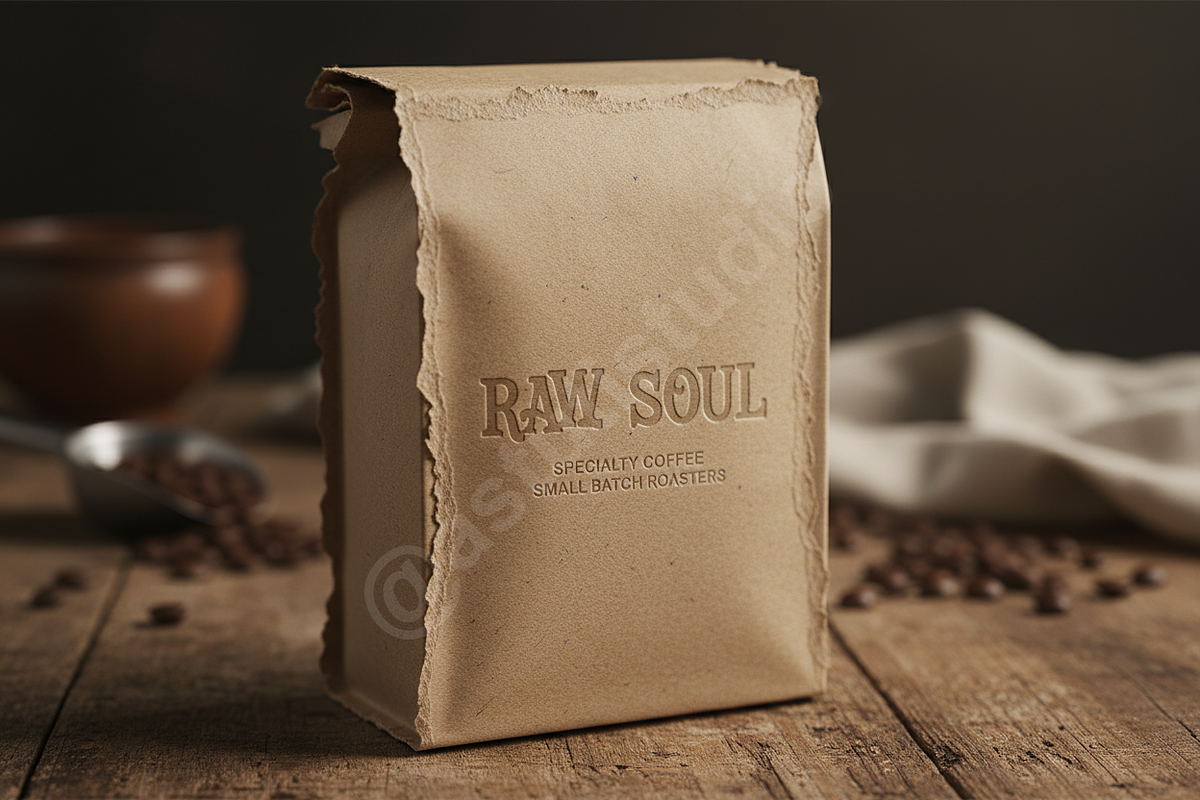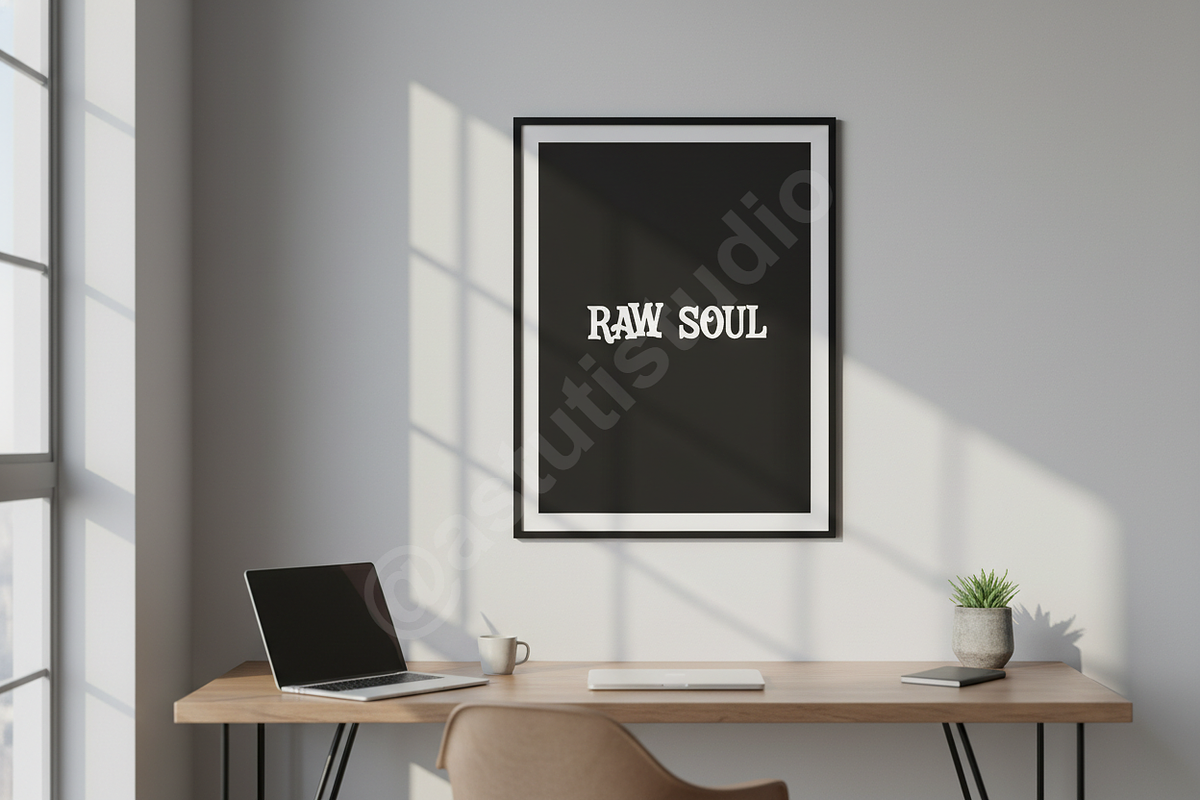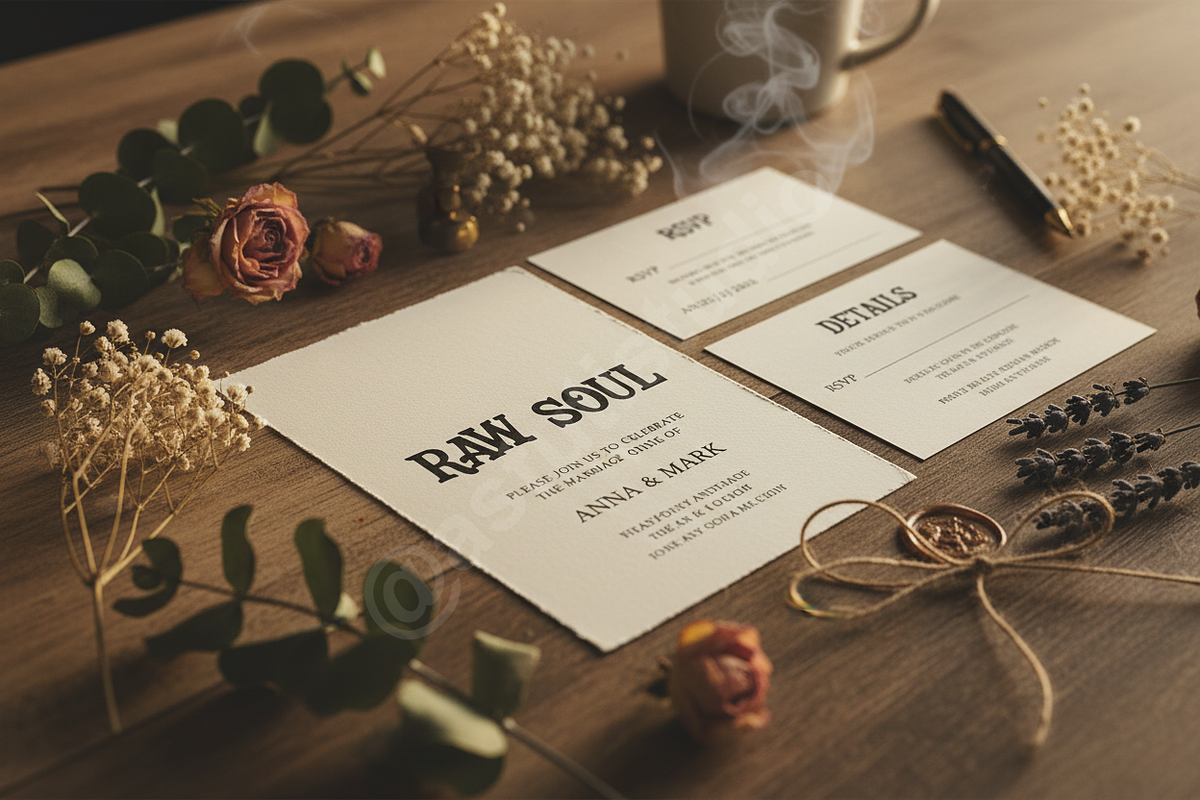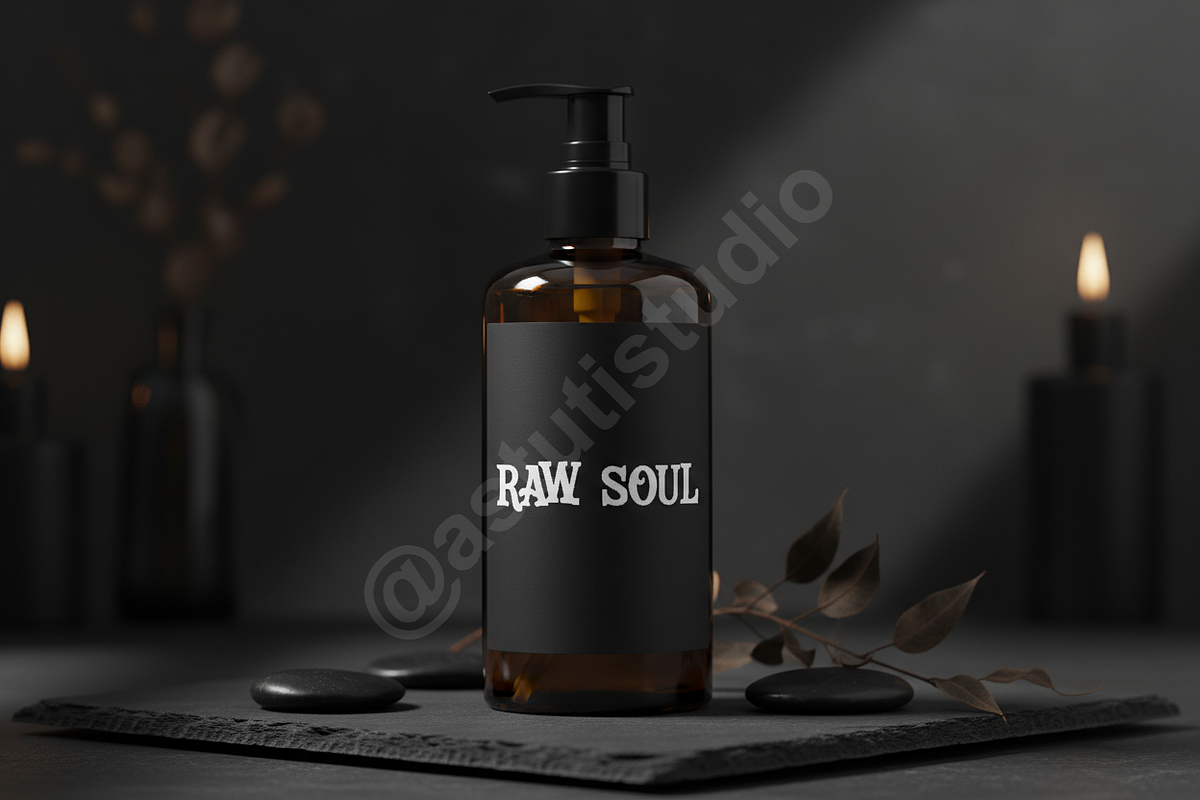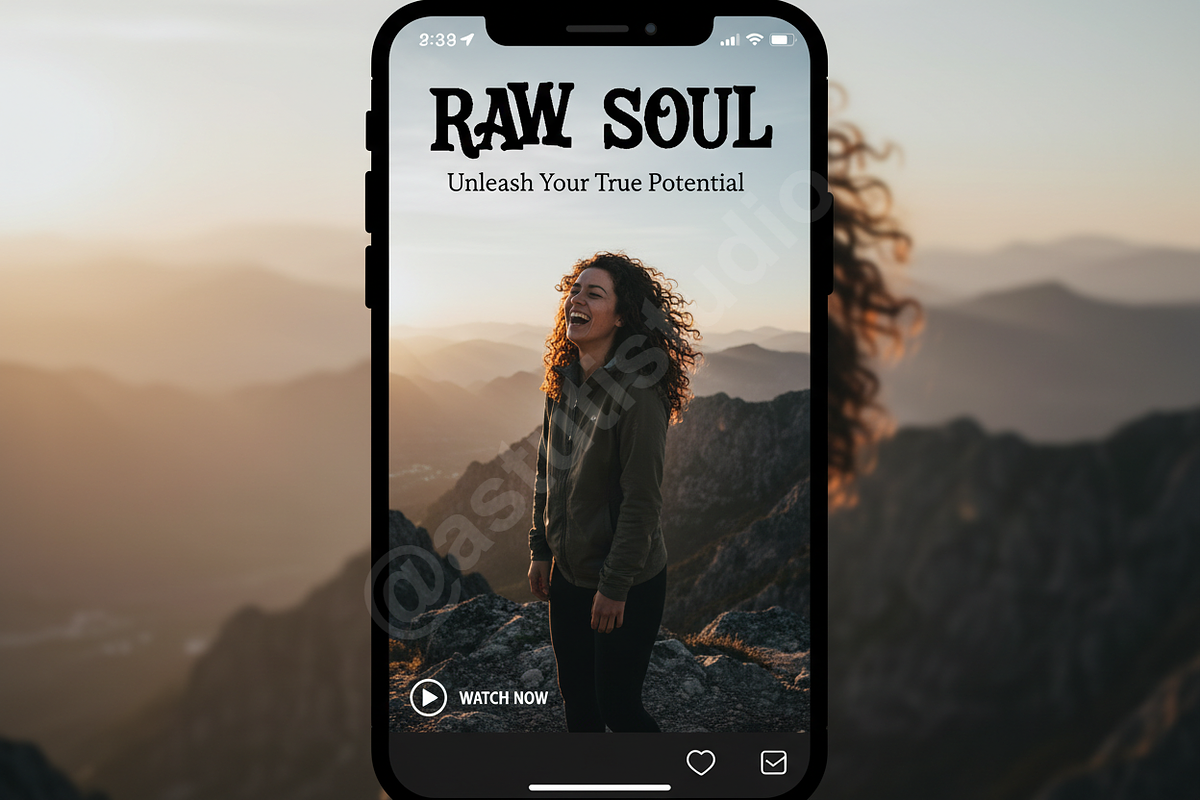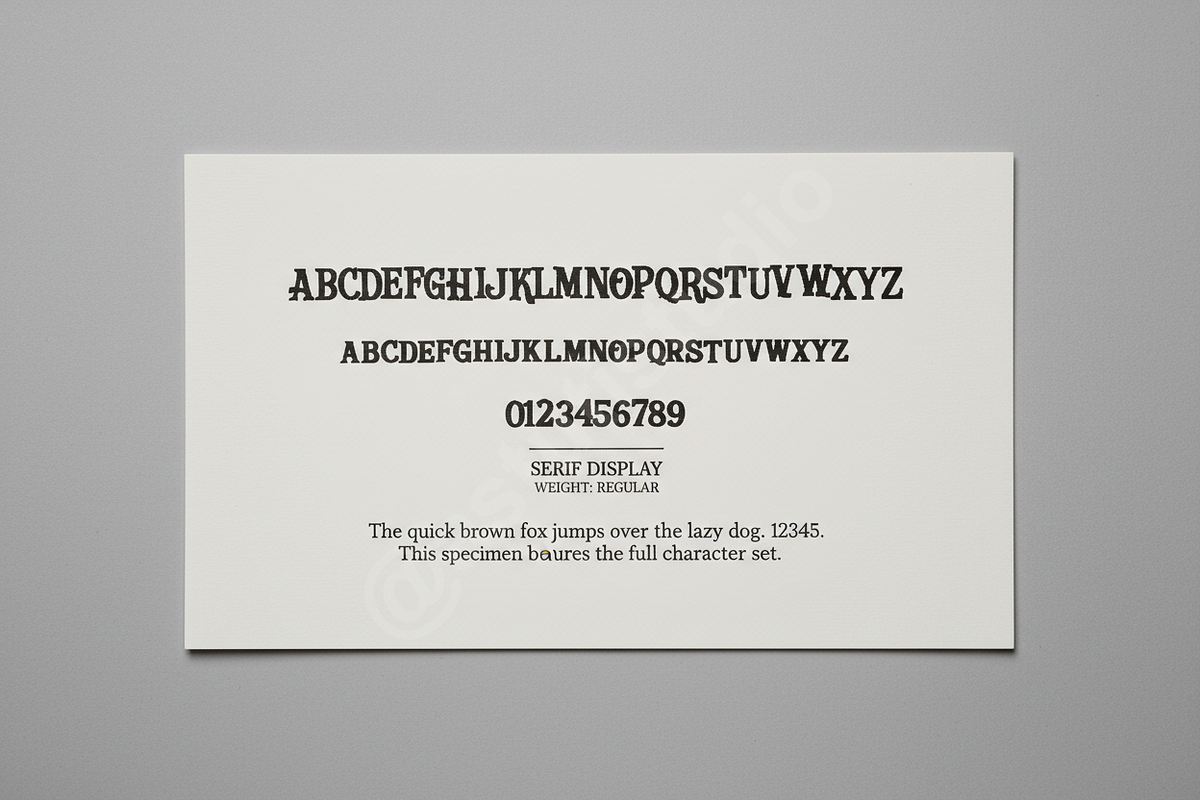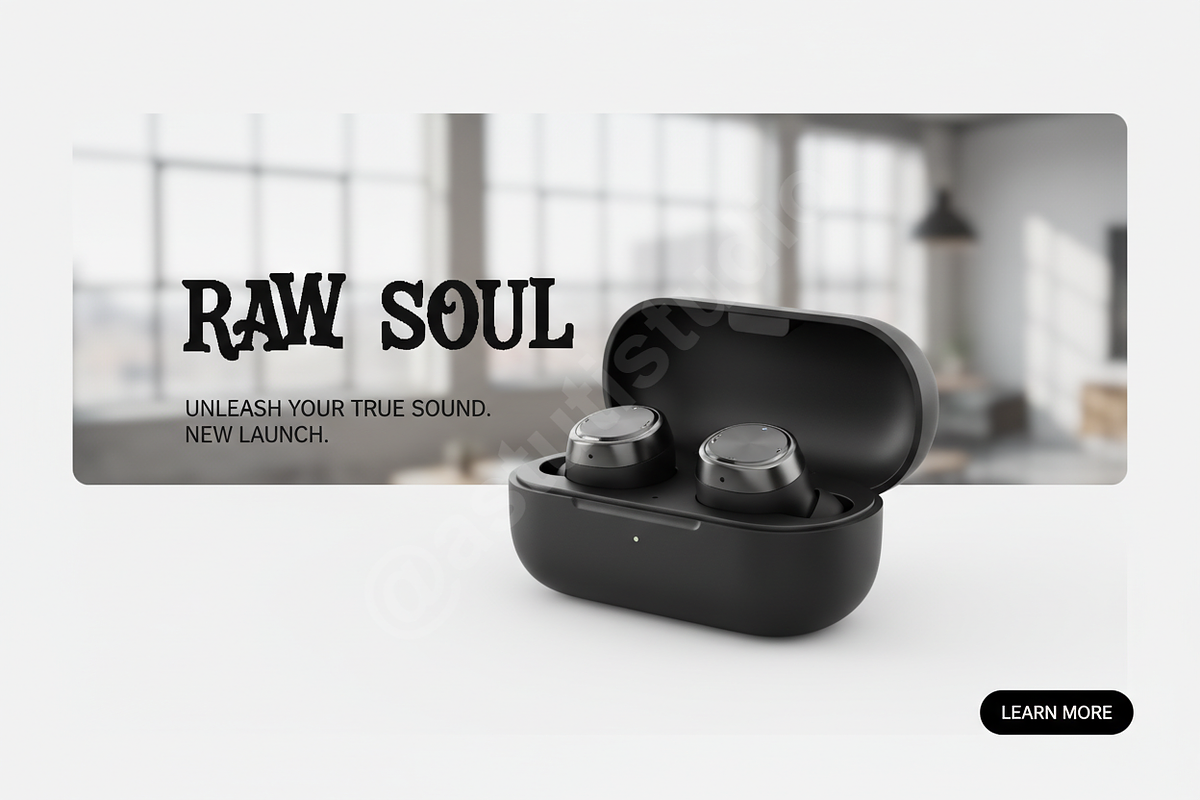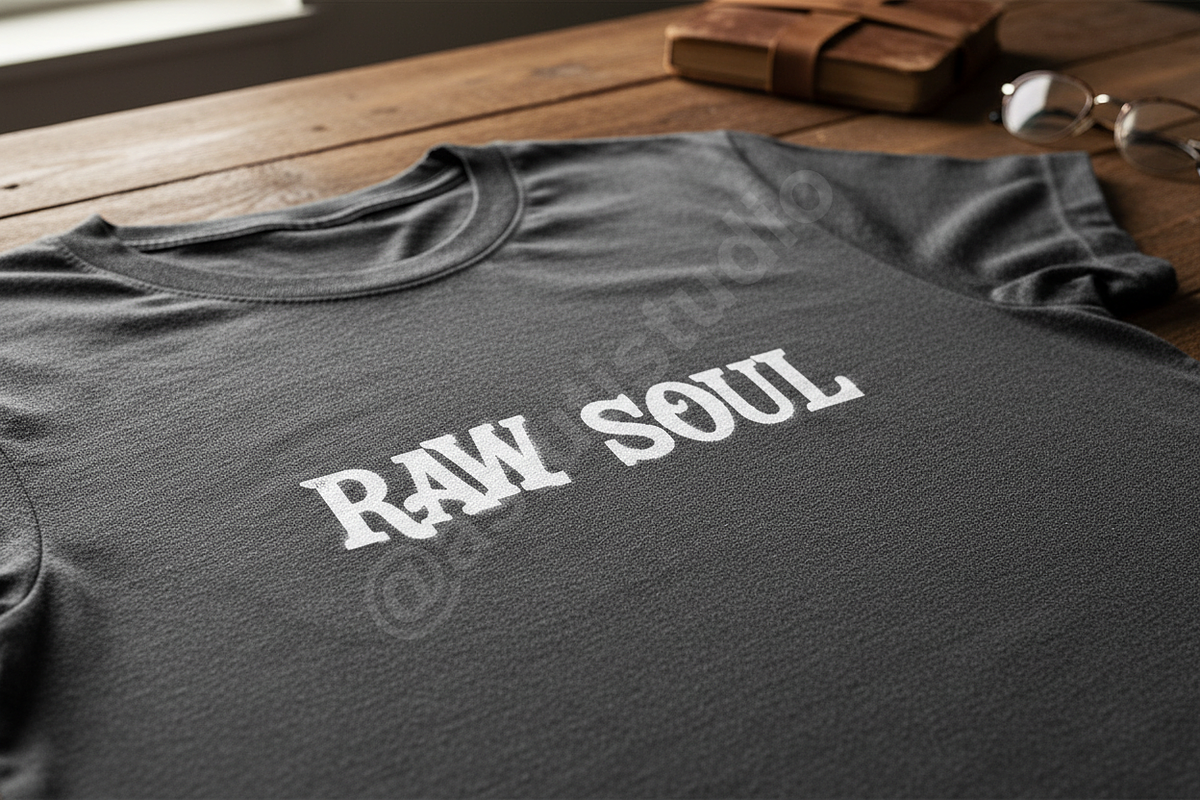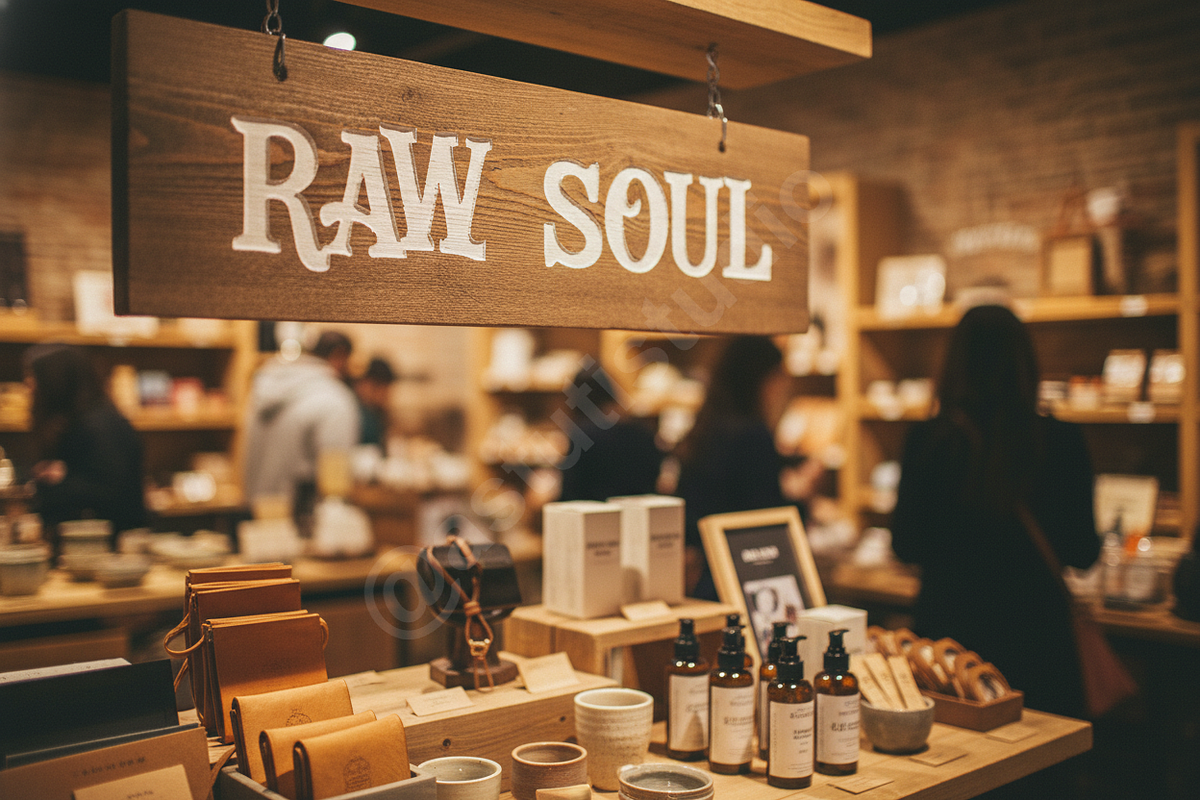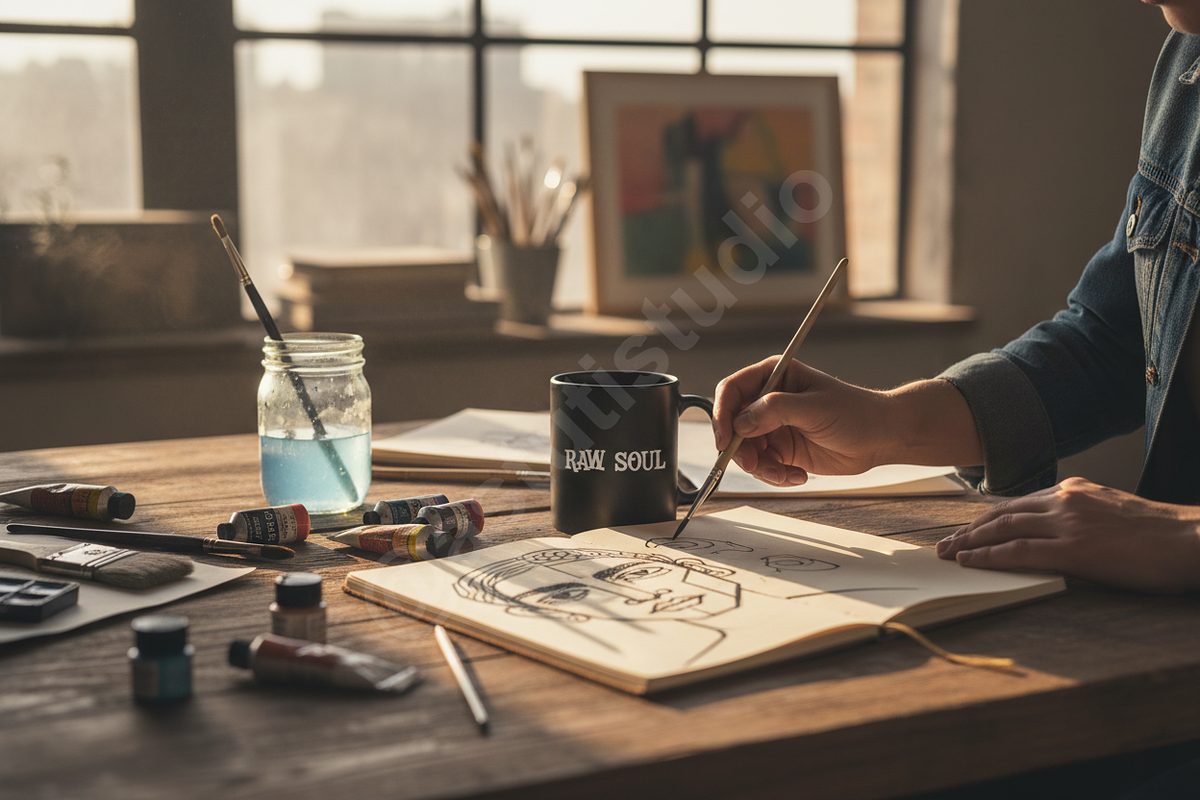
Getuwi - Elegant Serif Font for Luxu
Introducing Getuwi
Elevate your design projects with Getuwi, a meticulously crafted serif font designed for sophistication and timeless elegance. Getuwi embodies luxury, making it the perfect choice for high-end branding, captivating editorial layouts, and a polished social media presence. Its refined curves and balanced letterforms promise to add a touch of exclusivity to any creative endeavor, ensuring your message is conveyed with unparalleled grace.
- Elegant Uppercase & Lowercase Character Set
- Comprehensive Numerals & Punctuation
- Extensive Multilingual Support
- Beautiful Ligatures & Stylistic Alternates